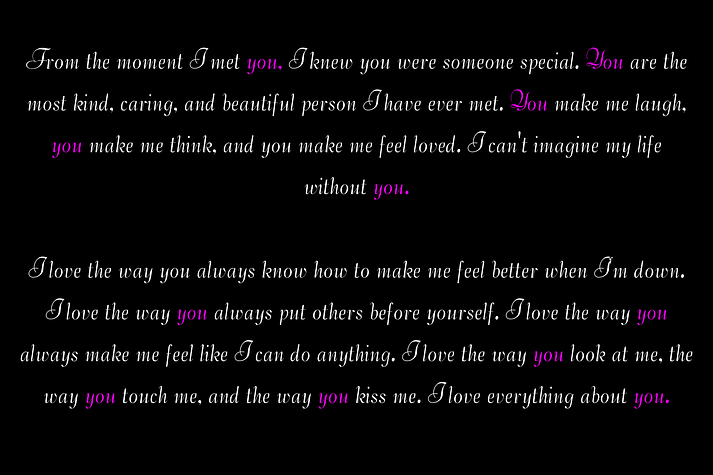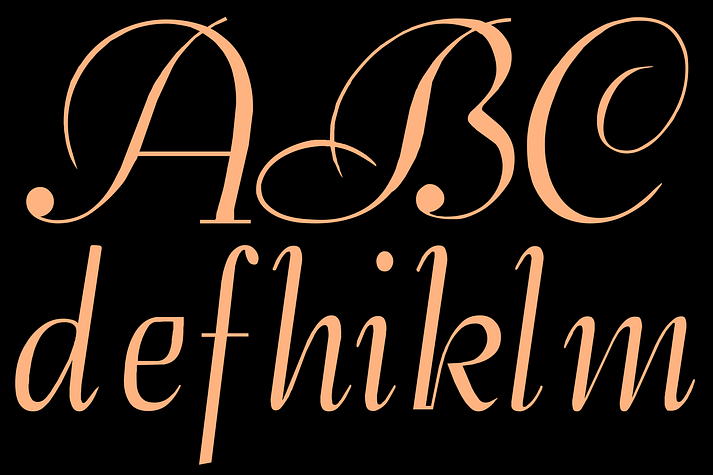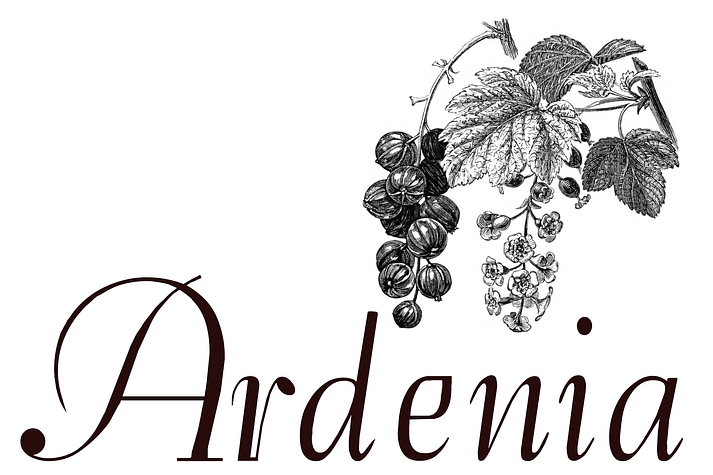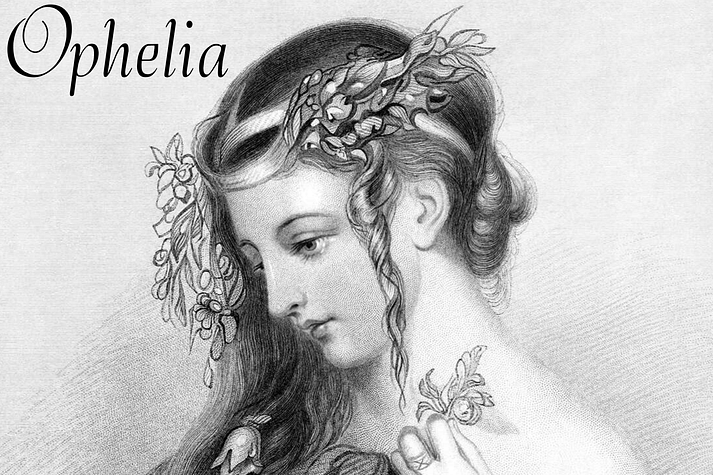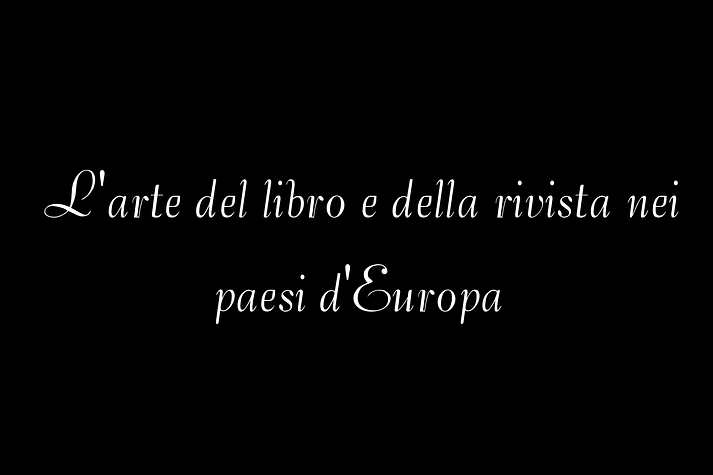
Ardenia
Designed by Paulo W, Ardenia is a modern calligraphy font family published by Intellecta Design.
Immerse yourself in the delicate charm of Ardenia, a masterfully crafted serif semi-script font. Dripping with feminine allure and soft sophistication, Ardenia is the quintessential choice for designs that aspire for cleanliness and elegance. Allow the gentle curves and sleek lines of this font to transform your visuals into a breathtaking aesthetic experience. With Ardenia, the refined elegance is inevitable. Make an indelible impact, empowering your designs with the soft yet potent beauty of this unique font.